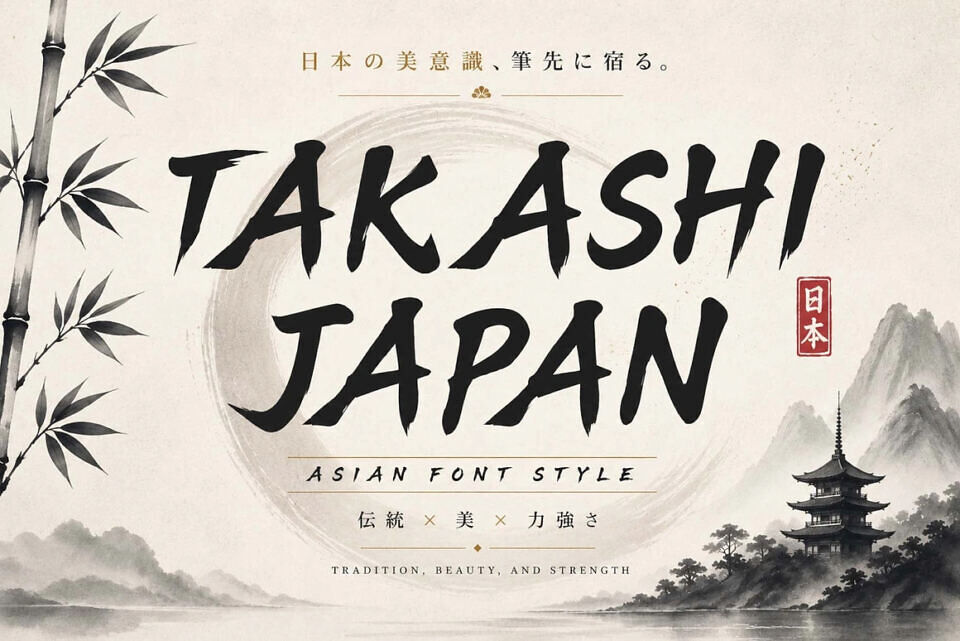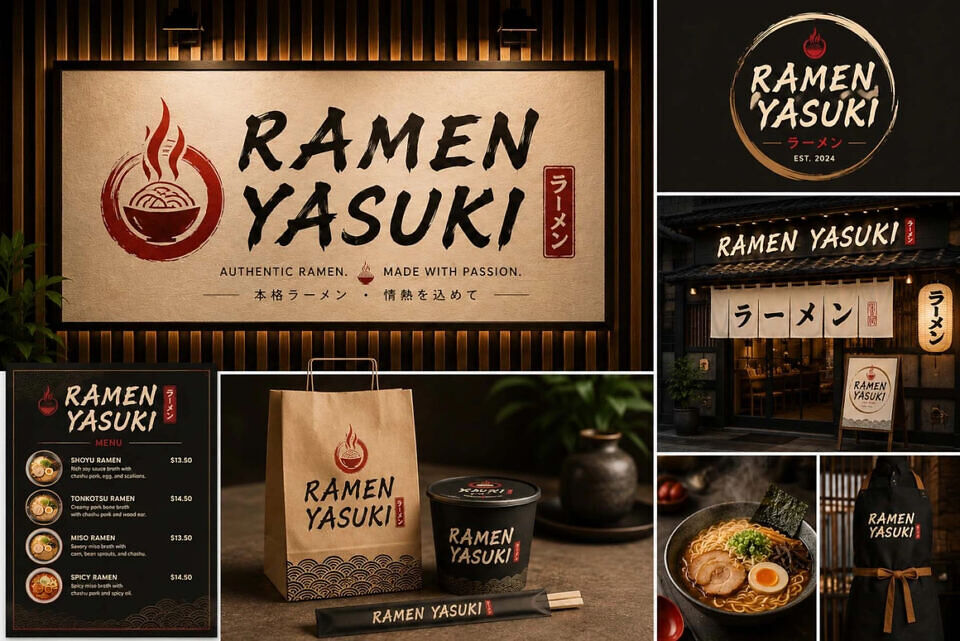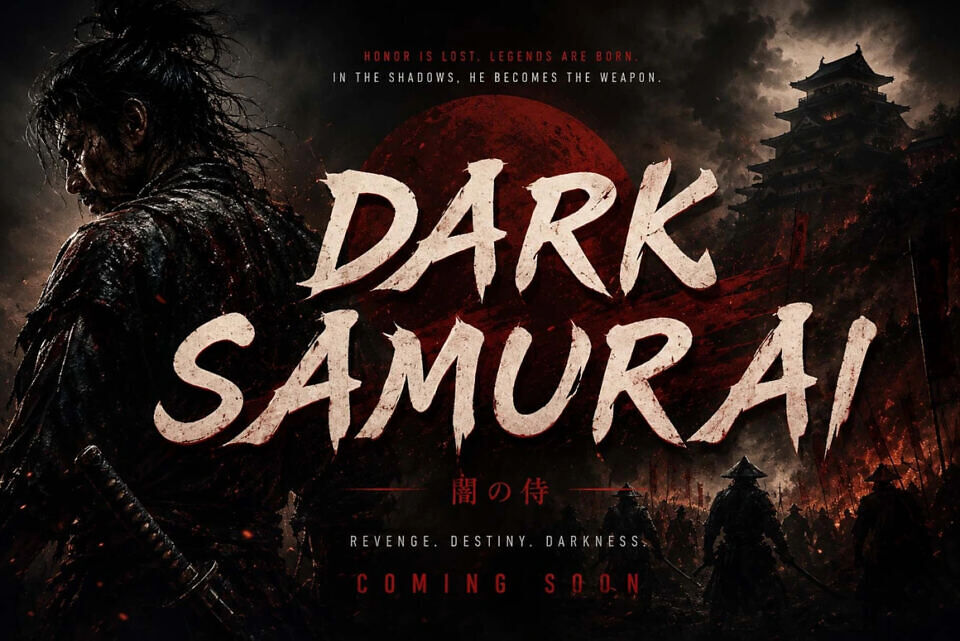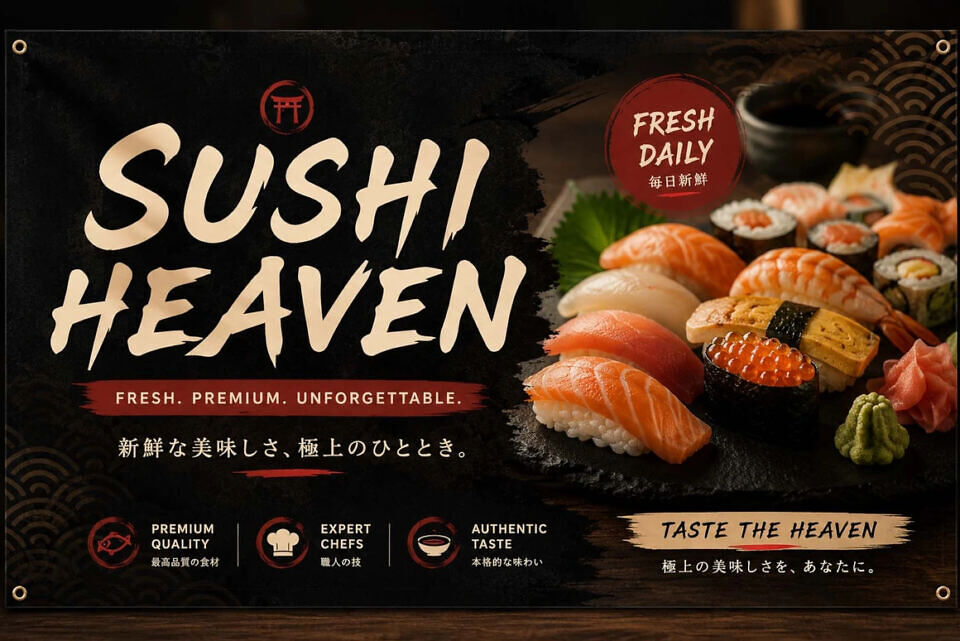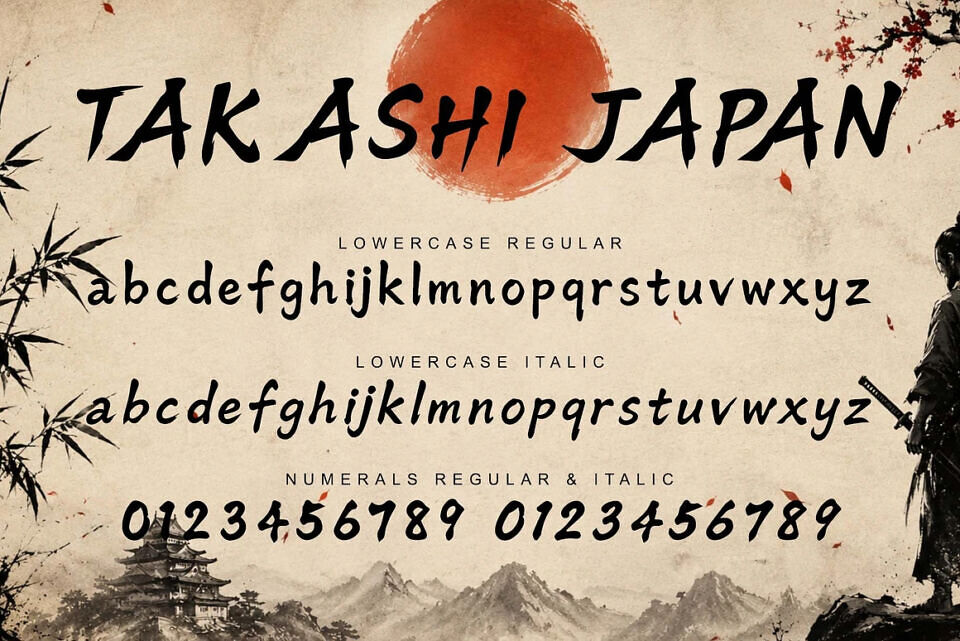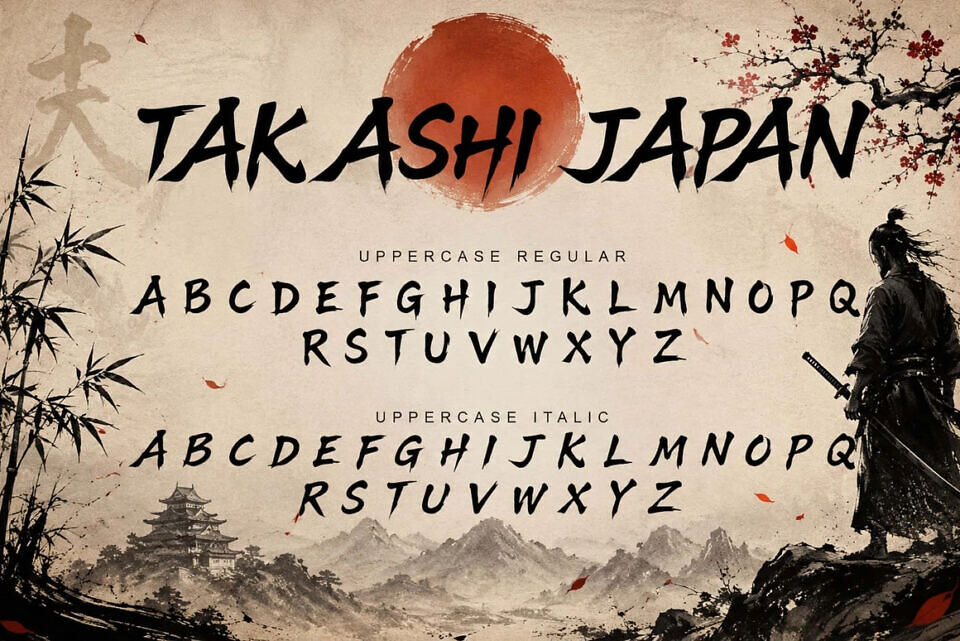
Takashi Japan Font
Takashi Japan is a Japanese brush-style display font inspired by traditional samurai calligraphy. It comes in two styles: regular and italic, featuring uppercase and lowercase letters, numbers, punctuation, and multilingual support. Each character features bold, dynamic, and energetic brushstrokes, creating a strong, bold, and authentic feel.
It’s perfect for Japanese-themed designs, samurai, ninja, anime, games, movie posters, Asian restaurant branding, merchandise, and even oriental cultural content. With its unique and recognizable characters, Takashi Japan delivers a seamless blend of tradition, strength, and modern aesthetics.